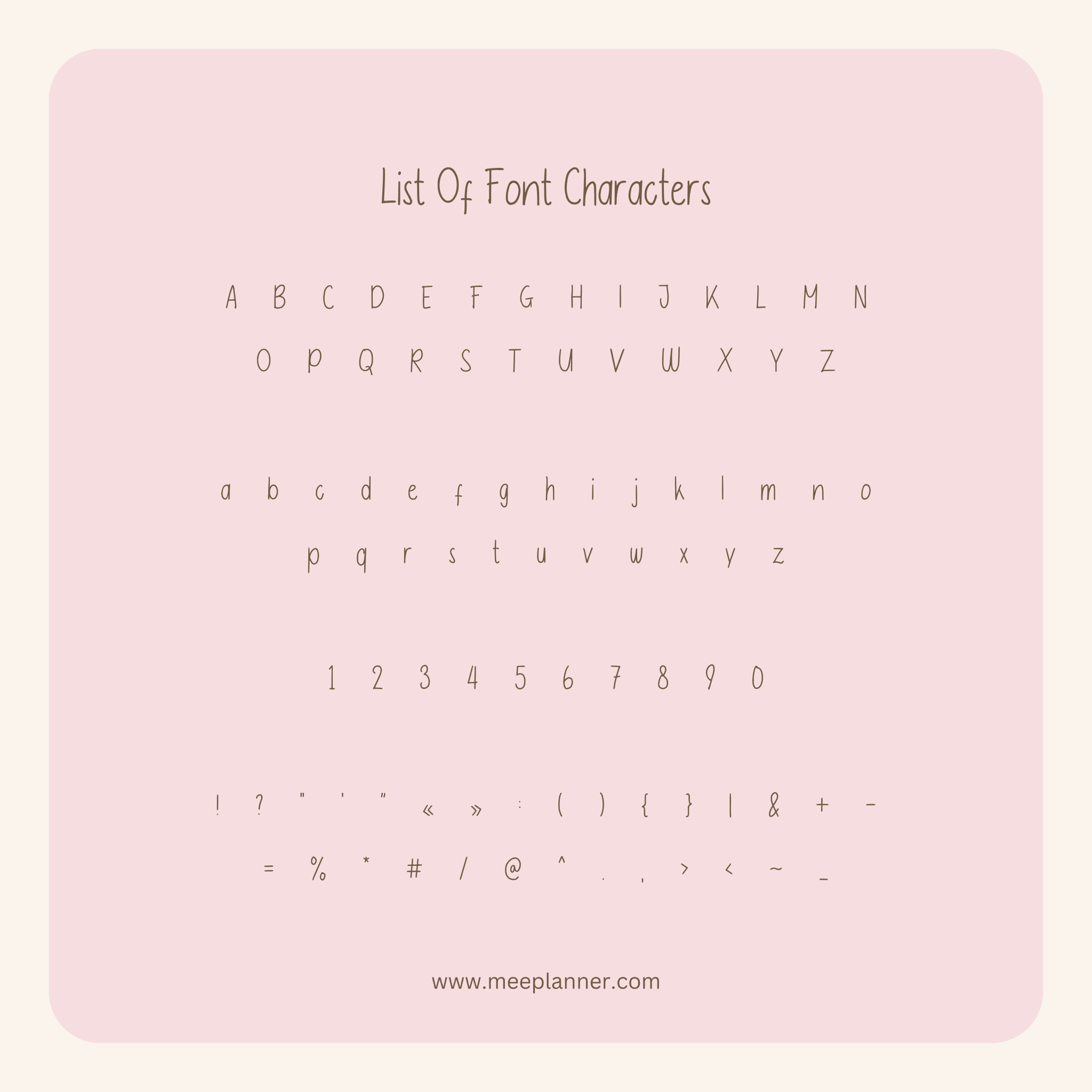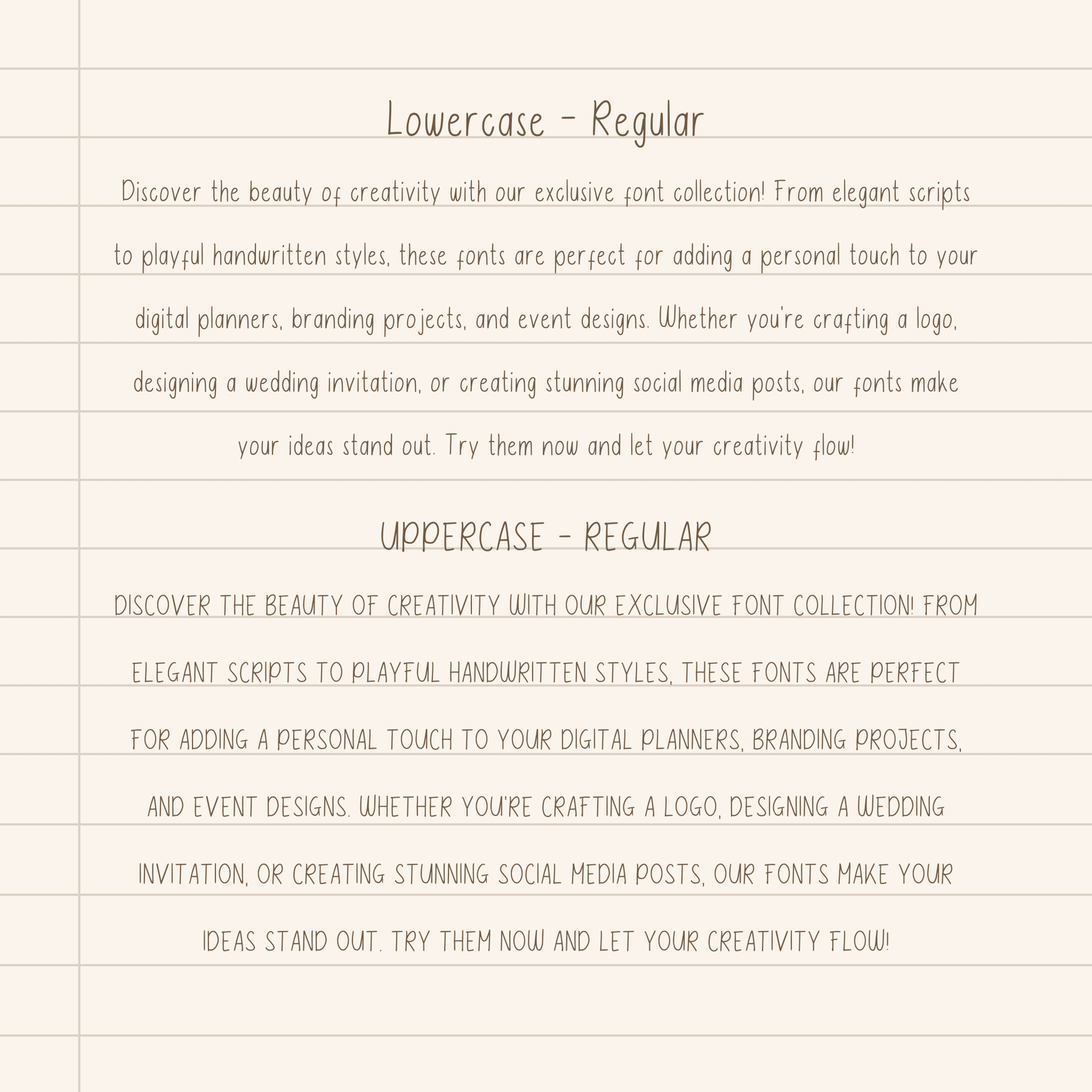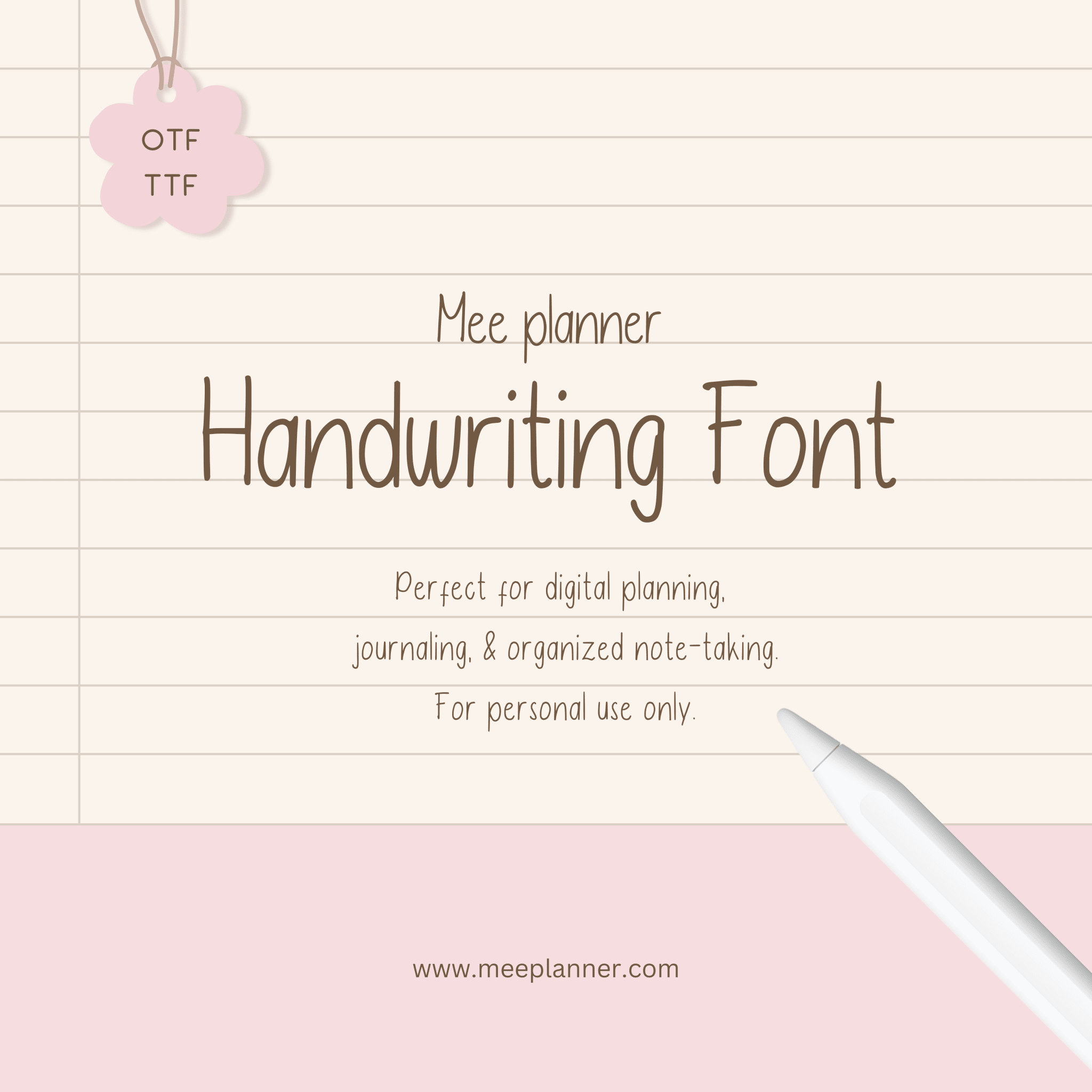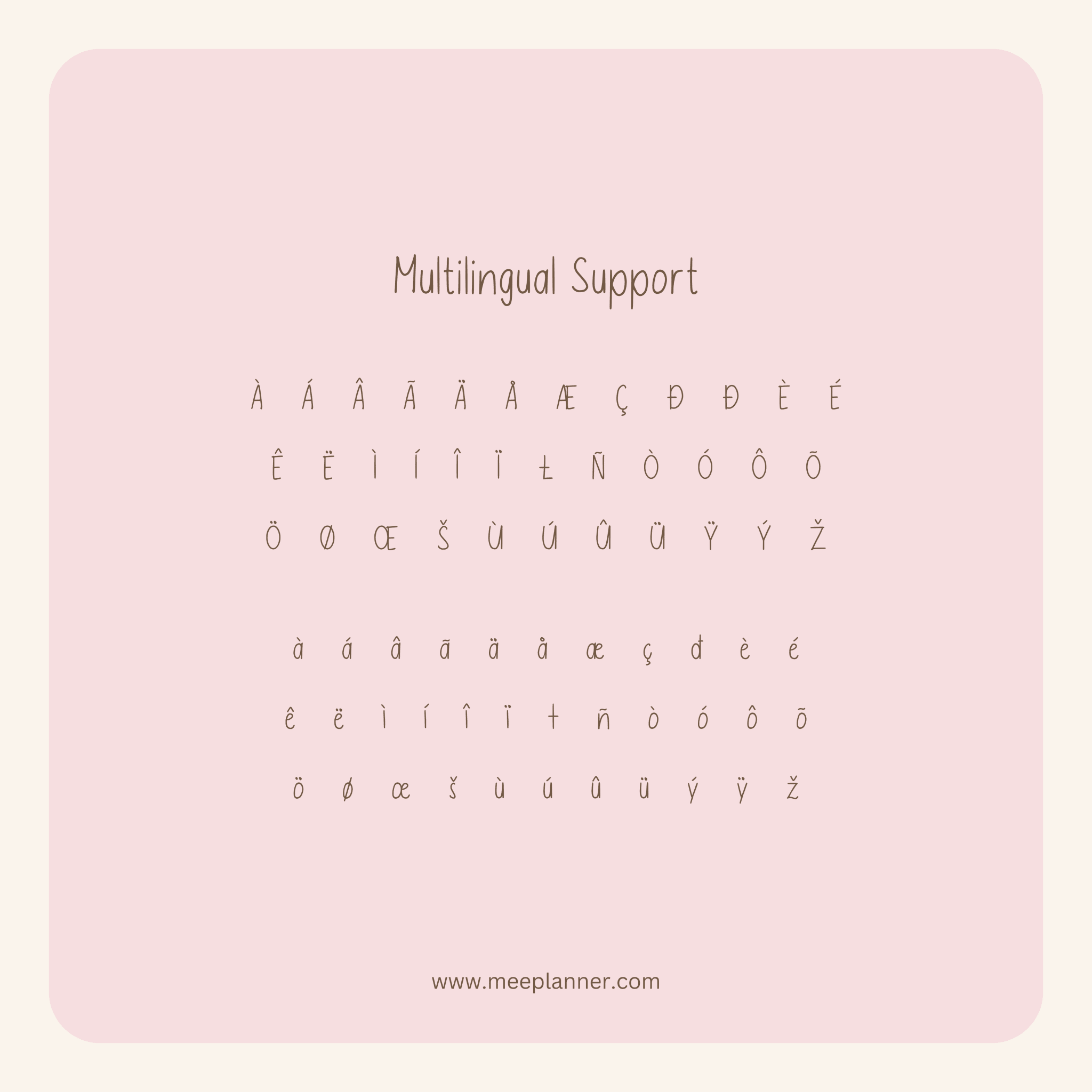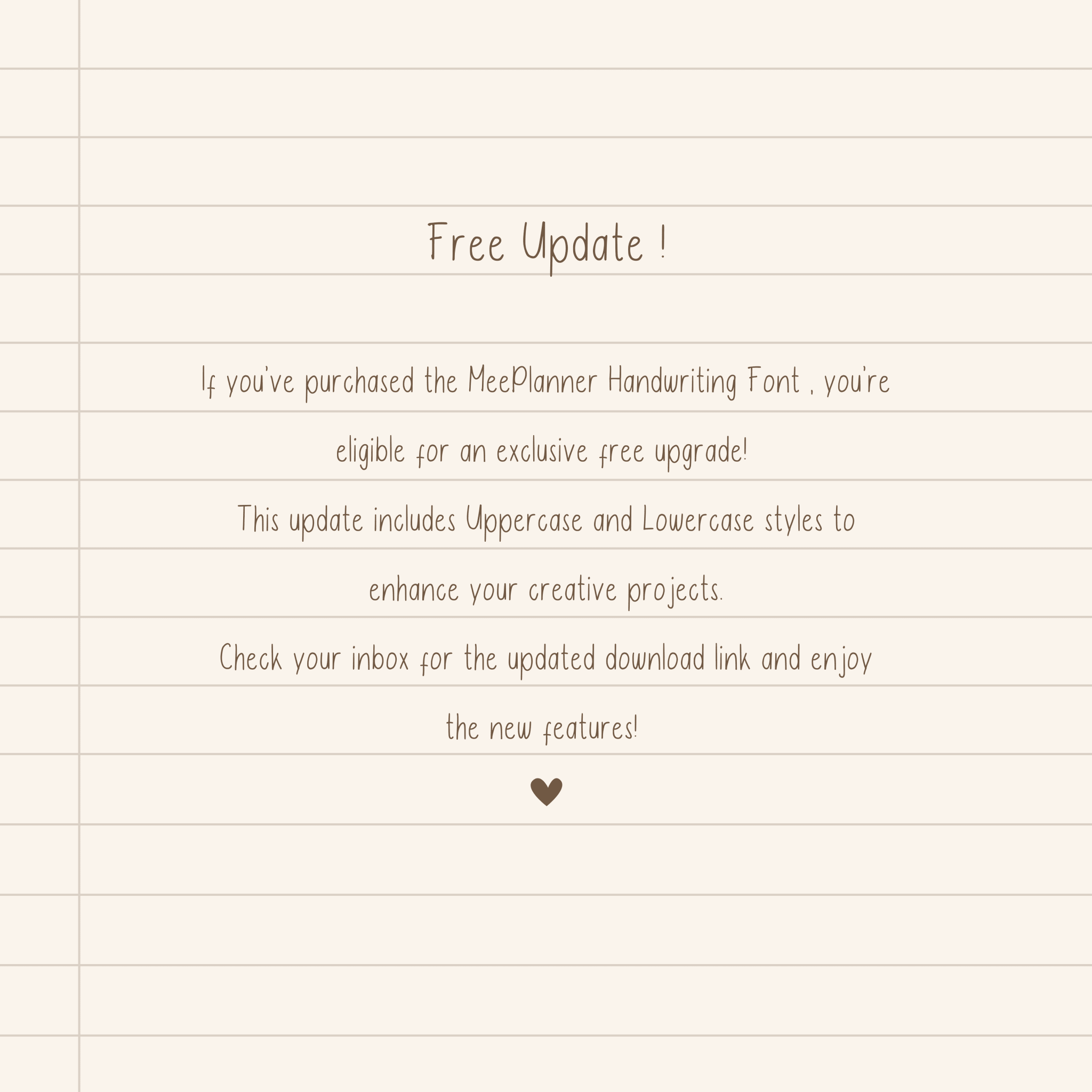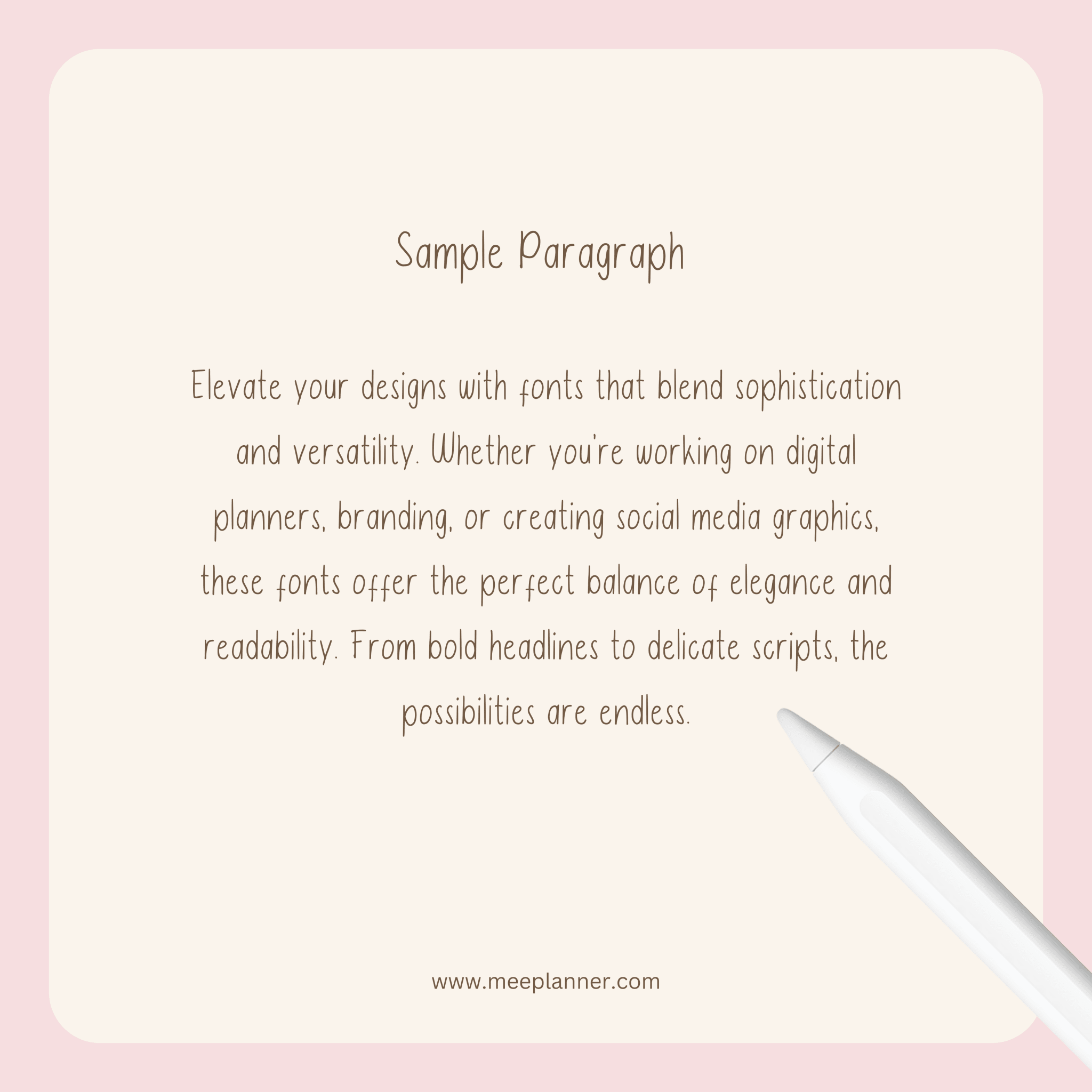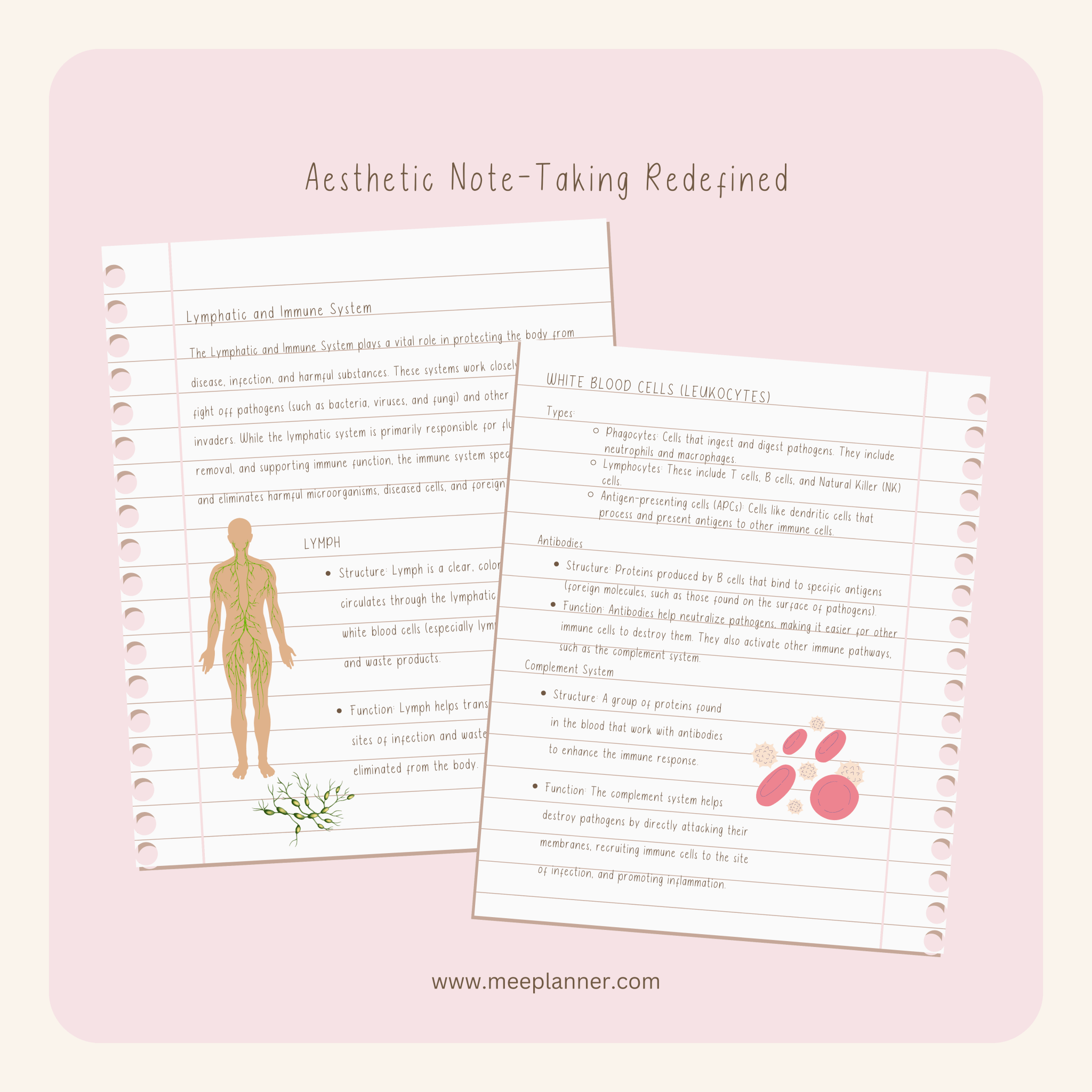
Explore the art of penmanship
Enhance your design projects with our Aesthetic Handwriting Font. It's meticulously crafted to reflect elegance and personal style. Perfect for logos, invitations, or any project requiring a sophisticated touch.
A blend of classic and modern
Our font combines traditional calligraphy with a contemporary flair. Its smooth lines and curves evoke both grace and functionality, making it adaptable for various themes and settings.
Aesthetic Handwriting Font